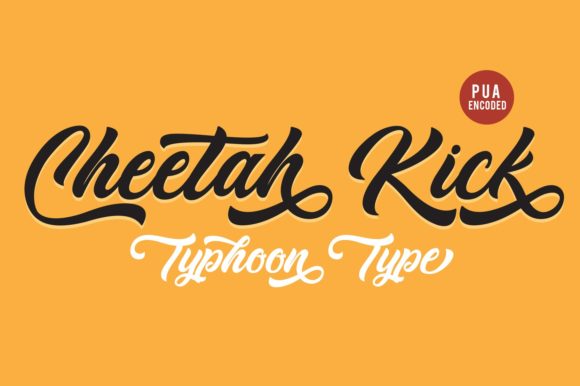
Embark on a typographic safari with Cheetah Kick, the script font that unleashes the untamed spirit of creativity. Its spirited strokes, reminiscent of a cheetah's graceful yet forceful strides, infuse your designs with a sense of dynamism and allure.
Indulge in the elegance of Cheetah Kick, a font that echoes the allure of timeless sophistication. Its meticulously crafted curves and confident lines lend an air of refinement to any project, whether it be logos, name tags, captivating advertisements, or sleek product packaging.
Step into the spotlight with Cheetah Kick, the font that commands attention in the realm of social media. Its striking presence elevates your posts, stories, and visual content, ensuring your message resonates with your audience and leaves a lasting imprint.
With Cheetah Kick, the possibilities are as boundless as the savannah. Unleash your creativity and explore a world of design opportunities, from captivating clothing designs that speak to your unique style to immersive social media graphics that ignite engagement.